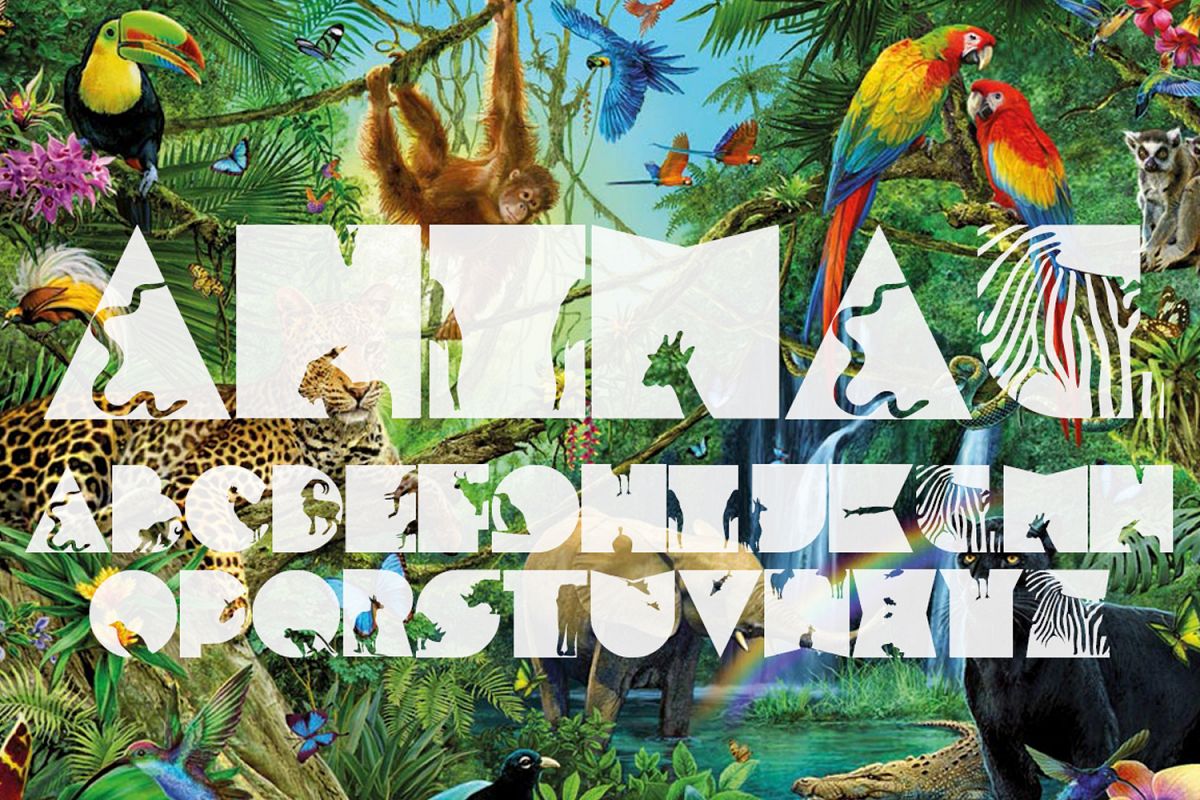
FTF Minthee Hewante
Inspired by the silhouette of animals in the forest, the font is very
suitable for the cover of a book or branding your logo, etc.